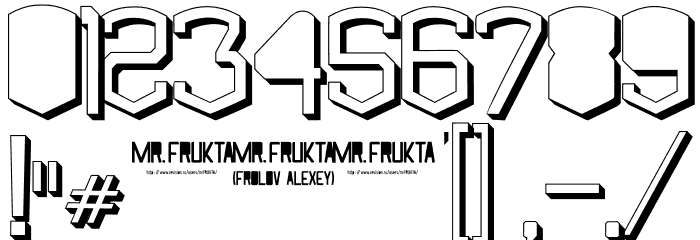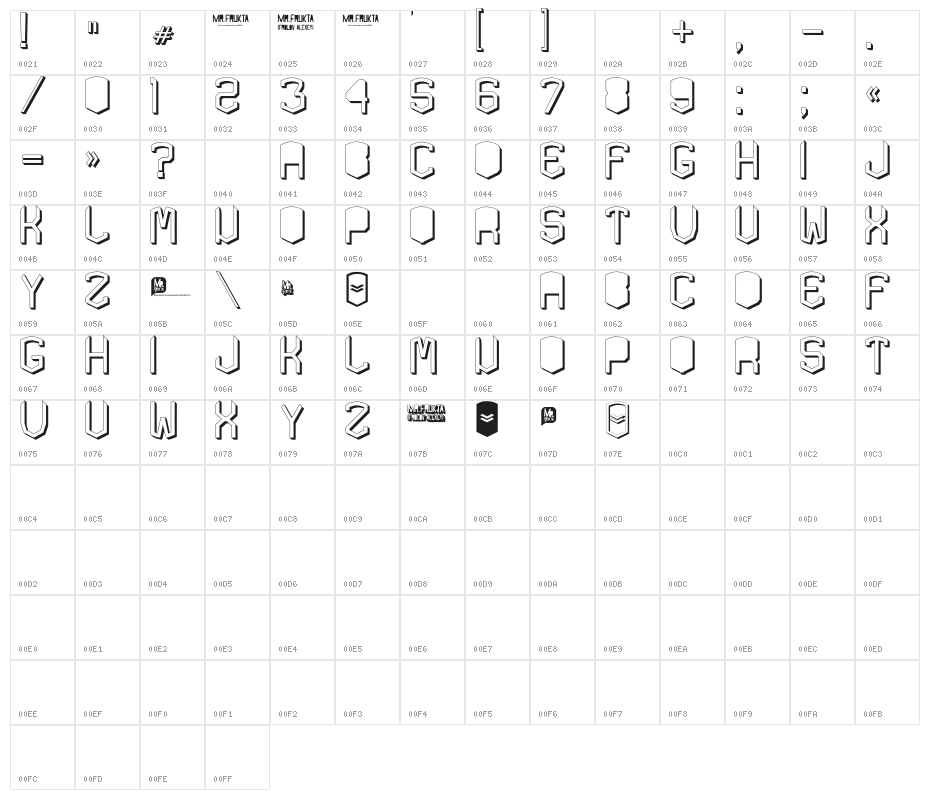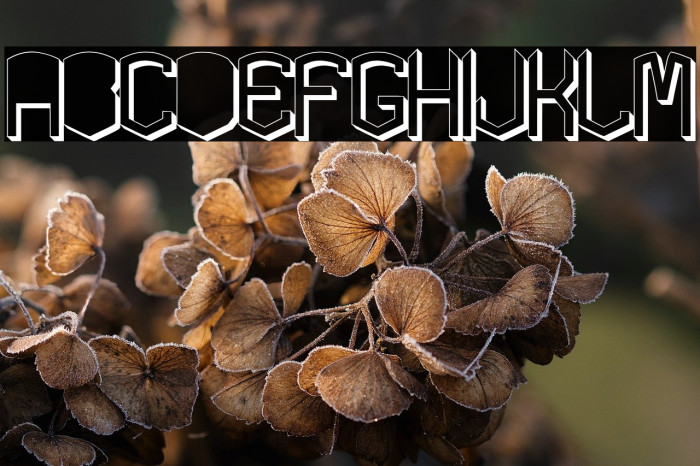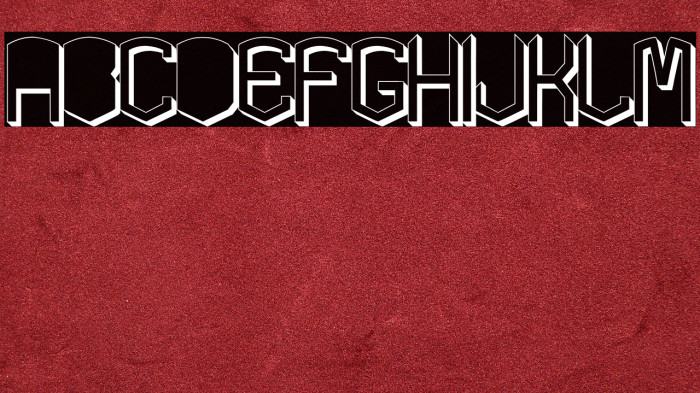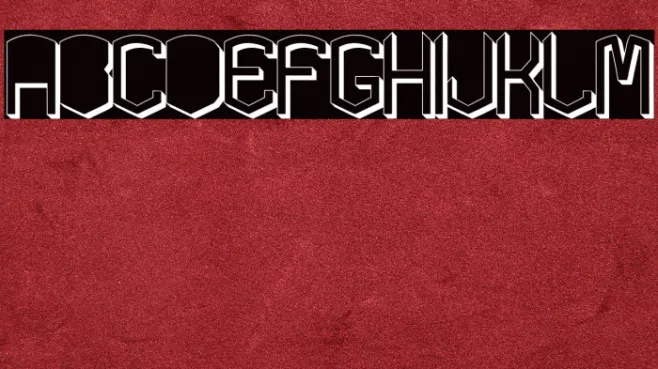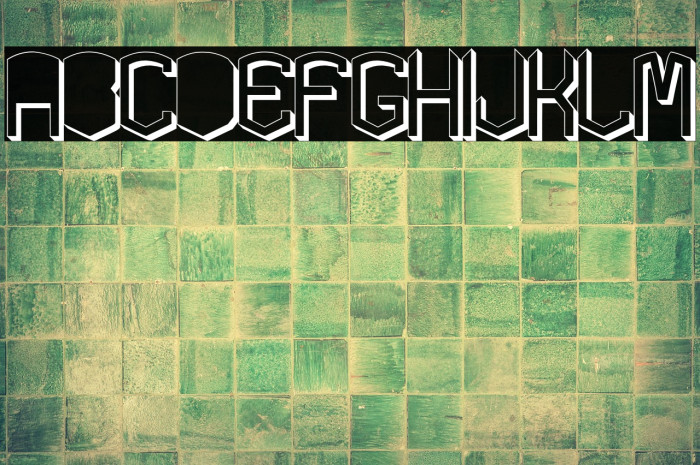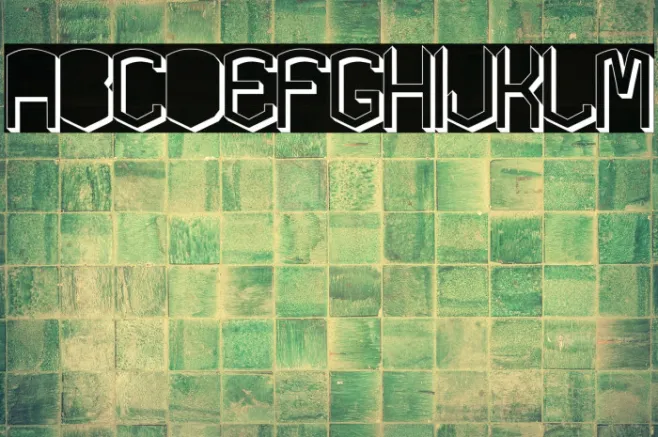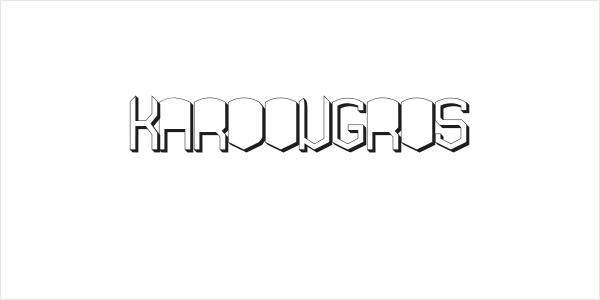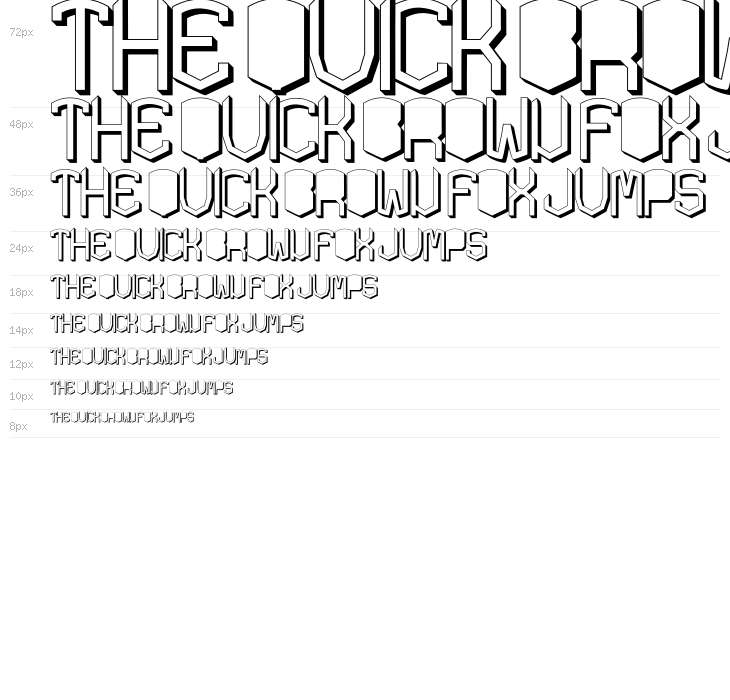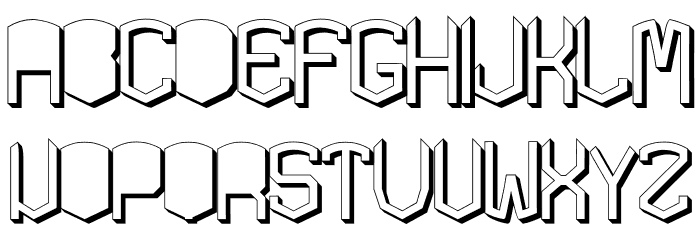
KARDONGROS Font
KARDONGROS Description
This font features a bold, geometric design with a three-dimensional effect, giving it a striking and modern appearance. The characters are constructed with thick, angular lines and sharp edges, creating a sense of depth and dimension. The uppercase and lowercase letters maintain a consistent style, with the numbers and special characters following suit. The font's unique structure makes it ideal for attention-grabbing designs, where a contemporary and bold statement is desired. Its distinct appearance is both futuristic and stylish, making it suitable for a variety of creative projects.
Proposed ProjectsIdeal for posters, logos, video game graphics, and futuristic-themed designs.